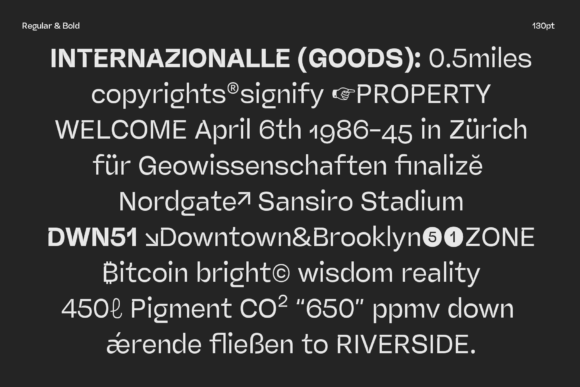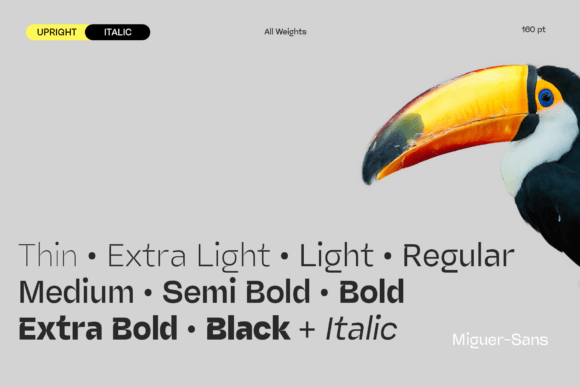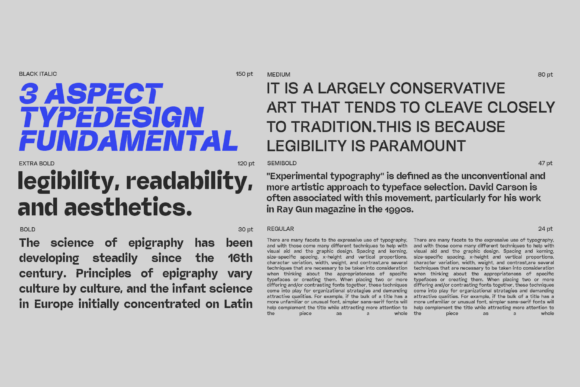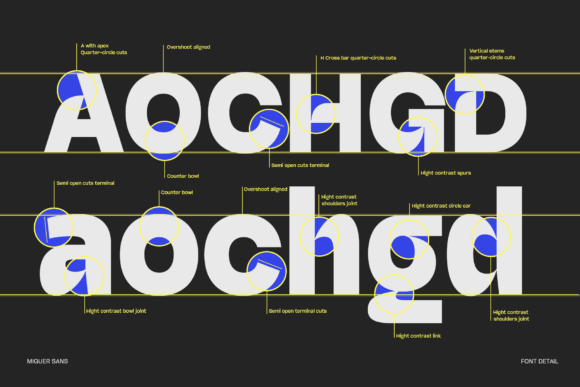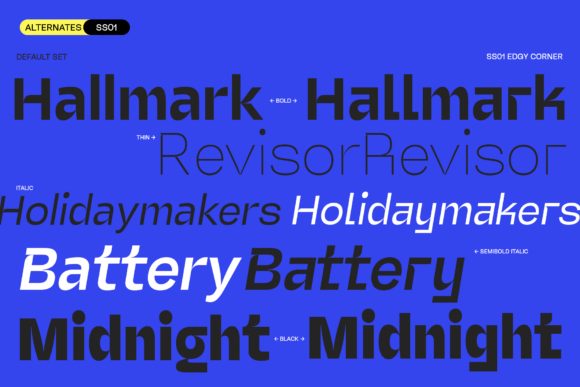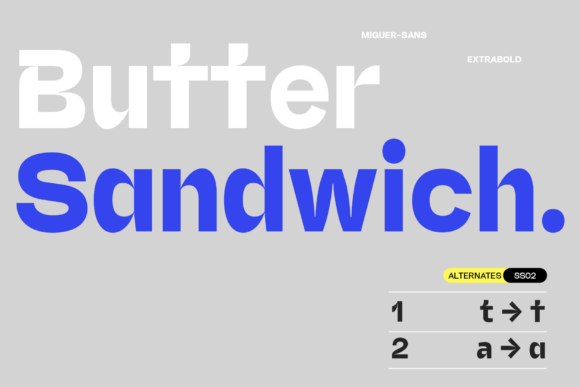
Introduction to Miguer Font
As a designer, have you ever found yourself staring at a blank canvas, waiting for the perfect font to bring your creative project to life? The struggle is real, but sometimes all it takes is one font to spark an idea and set your imagination soaring. For those seeking a versatile and eye-catching sans-serif typeface, look no further than the Miguer Font.
With its 18 styles ranging from Thin to Black, including italics, this high-contrast font offers a wealth of design possibilities. Its unique shape, inspired by the beak of a toucan, adds an elegant touch to any project, while its subtle incorporation of grotesque typeface elements provides a clean and geometric appearance.
Key Features of Miguer Font
- High-quality, unique design with a transparent background, ideal for creative projects.
- Includes a range of glyphs and characters, perfect for designers and artists working on creative projects.
- Supports high-resolution displays, ensuring crisp and clear text rendering.
- Designed to be a versatile design resource, suitable for a wide range of applications, from branding to typography.
- Unique characteristics include a modern, minimalist aesthetic and a wide range of font styles and weights.
Honest Review: Miguer Font
I recently had the chance to work with the Miguer Font, and I must say it’s been a game-changer for my creative project. This font is perfect for designers who want a high-quality, free download for their design work.
What works well: ✨ The Miguer Font has a unique, elegant design that adds a touch of sophistication to any project. The font is highly legible, making it perfect for both body text and headings. I also appreciate the fact that it’s a free download, which is always a bonus for designers on a budget.
The font also features a transparent background, which makes it easy to customize and pair with other design elements. Overall, I’m very impressed with the Miguer Font and would highly recommend it to any designer looking for a high-quality, free design resource.
However, there are a few limitations to consider: ⚠️ The font is only available in a few weights, which may limit its versatility. Additionally, the font may not be suitable for very large or complex projects, as it can be prone to pixelation at high resolutions.
Overall, I’m extremely satisfied with the Miguer Font and would highly recommend it to any designer looking for a high-quality, free design resource. With its elegant design, transparent background, and free download, it’s a must-have for any creative project.
- Unique, elegant design
- Highly legible
Miguer Font
Miguer Font is a high-quality design resource that can be used in various creative projects. It’s available for free download and comes with a transparent background, making it perfect for designers who need a versatile font.
Tips for Getting the Most Out of Miguer Font
Use Miguer Font in conjunction with other design elements to create a cohesive look. Experiment with different font sizes, colors, and styles to find the perfect combination for your design.
Miguer Font is perfect for creating professional-looking designs, such as business cards, brochures, and presentations. It’s also great for personal projects, like creating custom graphics or designing a website.
Alternatives to Miguer Font
The Great Vibes Font is a beautiful, elegant script font ideal for creative projects that require a touch of sophistication. It’s available for free download and features a transparent background, making it perfect for overlaying on images or videos. Great Vibes Font is a high-quality design resource that can elevate any design project. When to use: Wedding invitations, branding, and packaging designs. How it compares to Miguer Font: Great Vibes Font has a more elegant and refined look, while Miguer Font is more playful and casual.
The Playfair Display Font is a luxurious, high-end font perfect for creative projects that require a touch of elegance and sophistication. It’s available for free download and features a transparent background, making it ideal for overlaying on images or videos. Playfair Display Font is a high-quality design resource that can elevate any design project. When to use: Luxury branding, high-end packaging designs, and wedding invitations. How it compares to Miguer Font: Playfair Display Font has a more luxurious and refined look, while Miguer Font is more playful and casual.